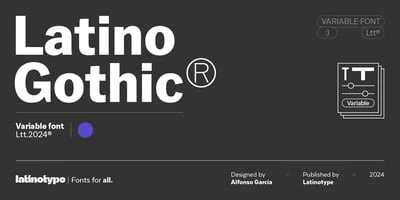
Latino Gothic Variable Font
Latino Gothic Variable Font is perfect for Hispanic cultural events, Latin American business branding, multicultural marketing campaigns, Spanish-language publications, Latino community communications, vibrant festival promotions, cultural heritage materials, bilingual educational resources, dynamic entertainment design, and passionate creative applications. This expressive typeface creates authentic Latino atmosphere in both cultural print and digital community platforms.
What makes Latino Gothic Variable Font exciting is its passionate fusion of Gothic strength with Latin American cultural vibrancy and variable font technology for maximum creative flexibility. The font features bold letterforms with cultural proportions and passionate character details that evoke vibrant communities, rich traditions, and dynamic Latino spirit. Its expressive design establishes an atmosphere of cultural pride and community strength that resonates with Latino audiences seeking authentic cultural representation and dynamic visual expression.
Latino Gothic Variable Font family includes cultural variations: Light, Regular, Medium, Bold, and Passion versions, each with variable weight technology and Latino character sets. Each variant maintains the font's cultural personality while providing designers with flexible options for creating dynamic typography systems and passionate communication materials.
This exceptional cultural typeface brings authentic Latino credibility to projects requiring passionate presentation. Whether you're designing cultural events, Latino branding, or community marketing materials, Latino Gothic Variable Font delivers outstanding vibrancy and cultural sophistication. The font's passionate proportions and cultural details ensure memorable community connection across various Latino applications.
Cultural organizations and Latino businesses recognize how Latino Gothic Variable Font perfectly captures the essence of Latino culture and community spirit. Its cultural foundation combined with passionate expression makes it essential for Latino and multicultural design projects. Download today and energize your designs with this exceptionally vibrant Latino typography.